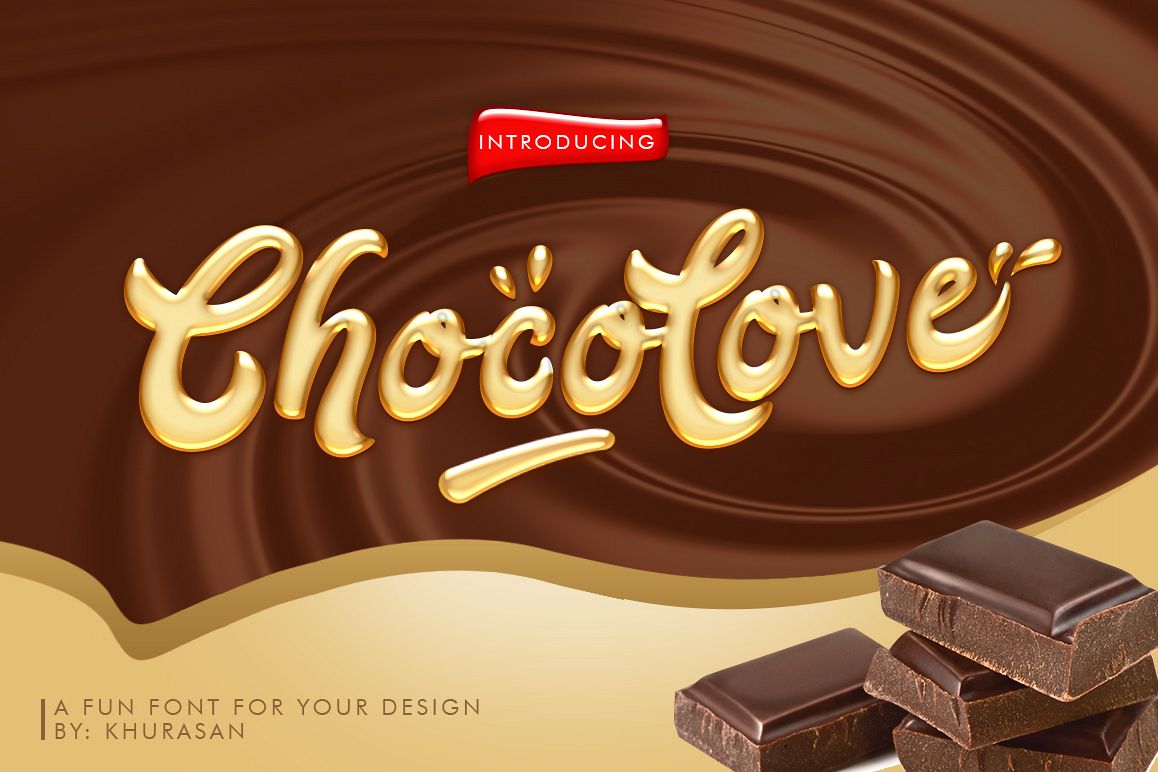
ChocoLove Script
ChocoLove Script Font is a fun bold script font, fresh & modern style . ChocoLove Script Font suitable for logo, branding, greeting card, poster and any design that you create.
• Stylistic alternates with number 1 & 2 after lowercase
You can access alternate with add number 1 & 2 after letter. all lowercase have one stylistic alternate.